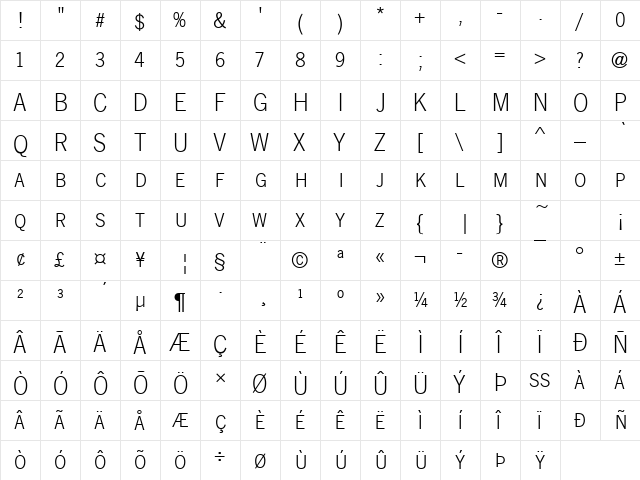
News Gothic Becker DisC Light Regular Font Preview
News Gothic Becker DisC Light Regular
Design Context for News Gothic Becker DisC Light Typeface
News Gothic Becker DisC Light takes a clean, functional approach — its unadorned letterforms prioritise legibility and work reliably across screen and print environments. The delicate stroke weight brings airiness and refinement to layouts.
A natural fit for high-end product packaging, luxury brand identities, and refined web typography.
Font Pairing: Pair News Gothic Becker DisC Light with a medium or bold serif for headlines — the weight contrast creates an elegant, high-end feel.
Pro Tip: Use News Gothic Becker DisC Light with generous tracking and line-height for the most luxurious effect — light sans-serifs reward spacious, considered layouts.